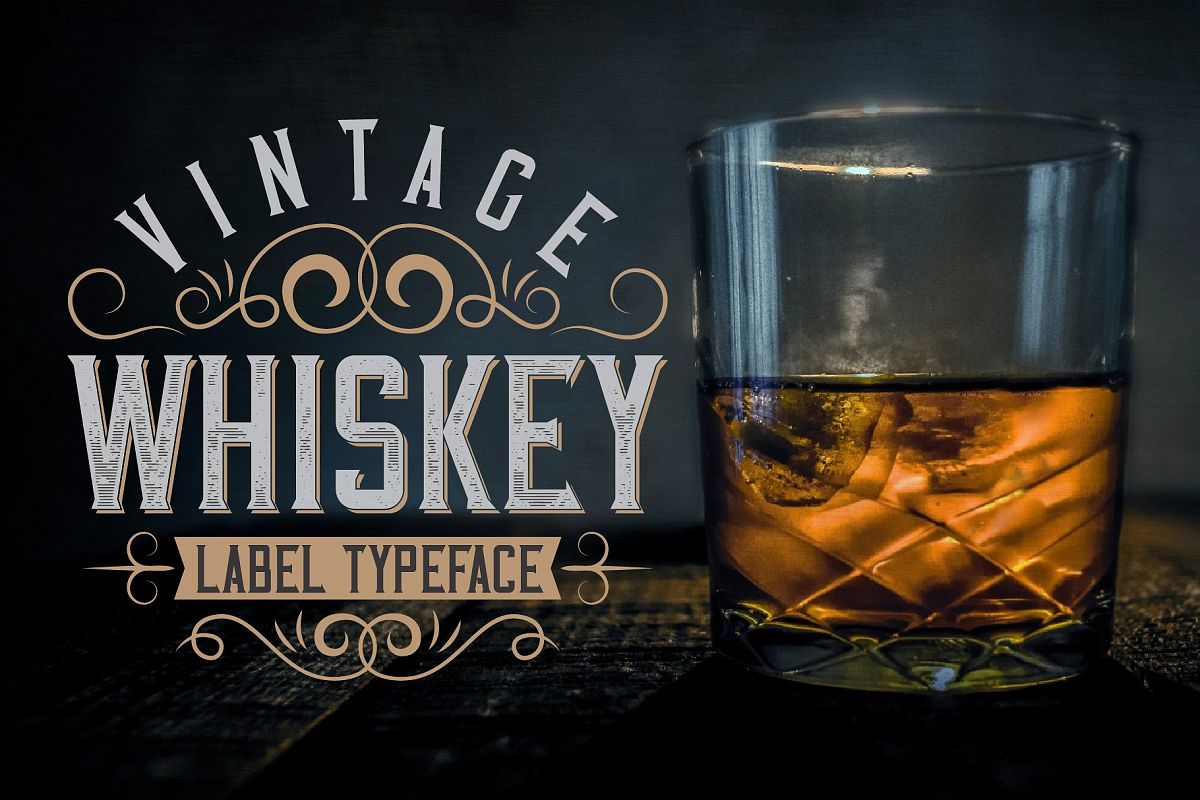
Vintage Whiskey
Introducing a vintage look layered label typeface named "Vintage Whiskey". This typeface includes six styles (including effect styles), for sample look at 4th preview. This font will good viewed on any retro design like poster, t-shirt, label, logo etc.Complect: